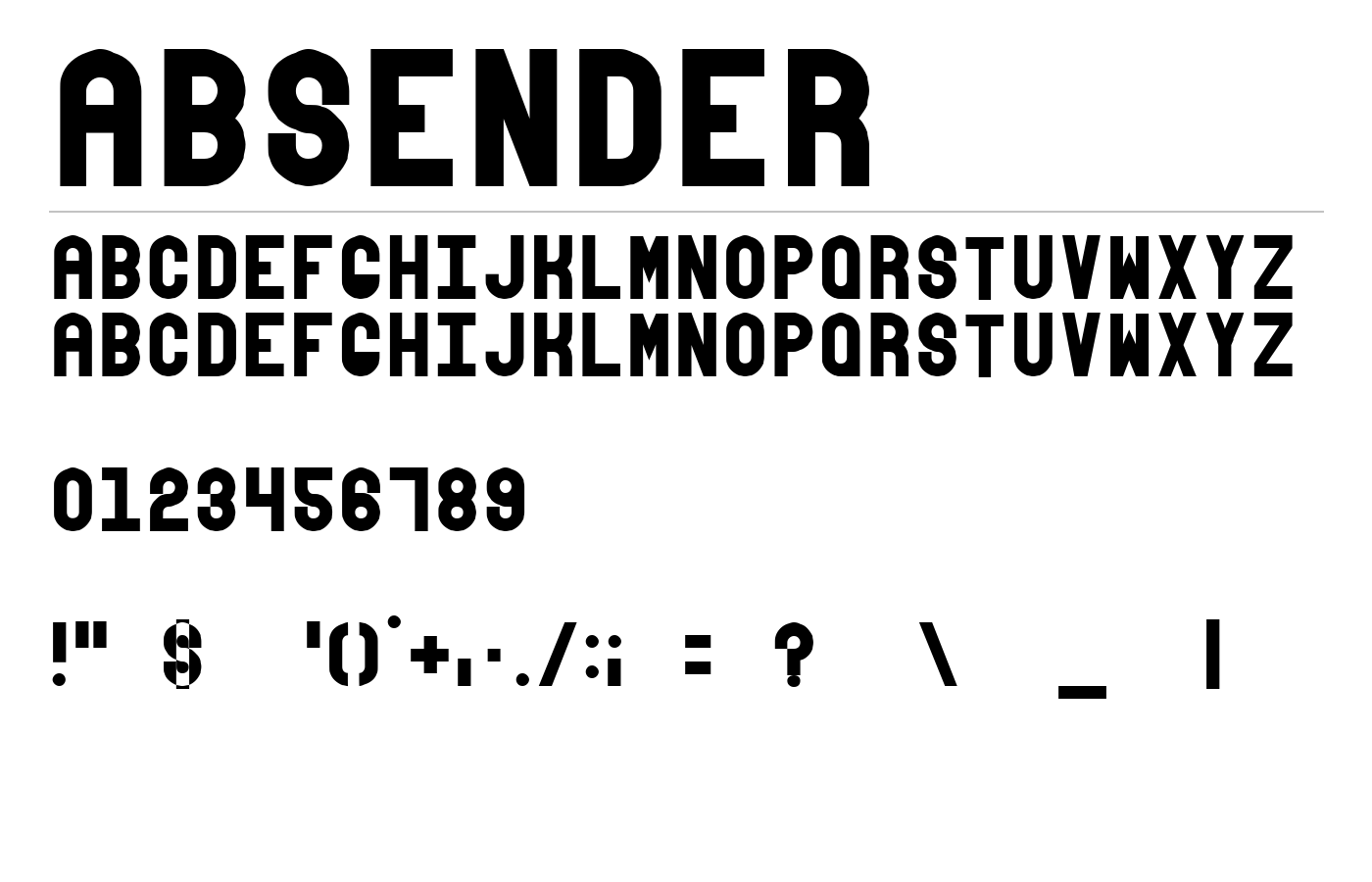
Absender is a bold, condensed sans serif font with a strong, industrial feel characterized by its tall, uniform letterforms and minimal stroke contrast. Its clean, geometric shapes and slightly rounded edges give it a modern yet approachable look, making it ideal for impactful headlines, branding, and signage that need clear legibility and a confident presence. This font works especially well in settings where space is tight but a bold statement is required, such as logos, posters, and editorial titles.